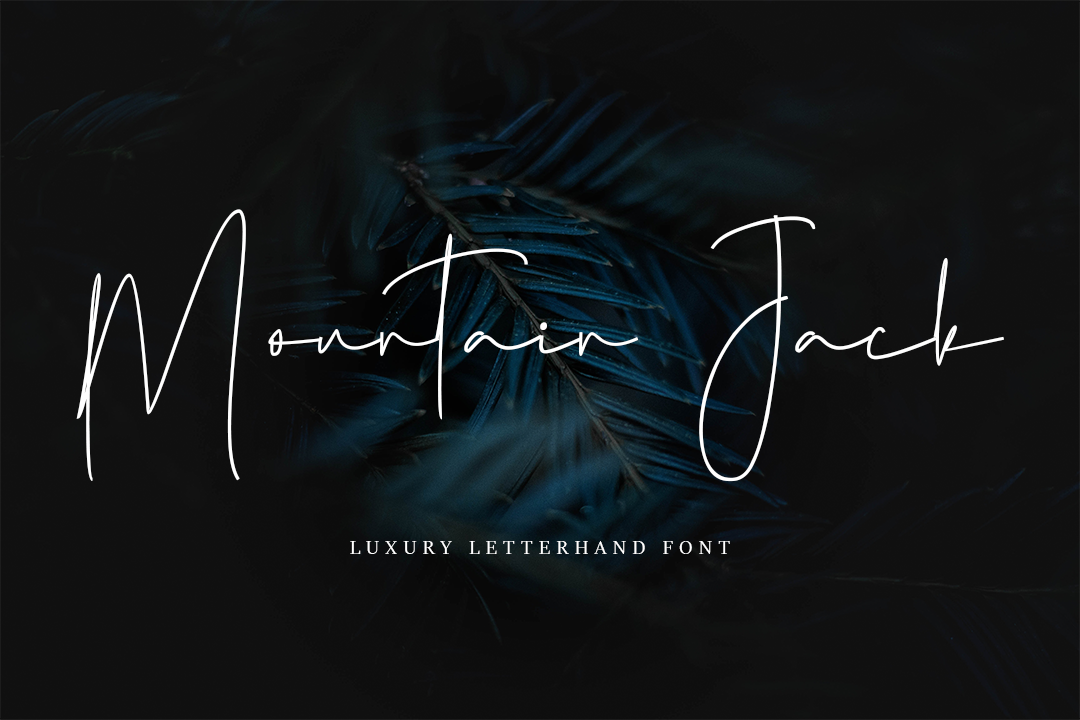
Mountain Jack | Letterhand Font
Hi! Introducing my newest font called Mountain Jack.
Mountain Jack is a sweet and delicate handwritten font. Dainty and joyful, this font will be ideal for writing wedding invitations, cards, or any other design that may need a romantic, personalized touch!